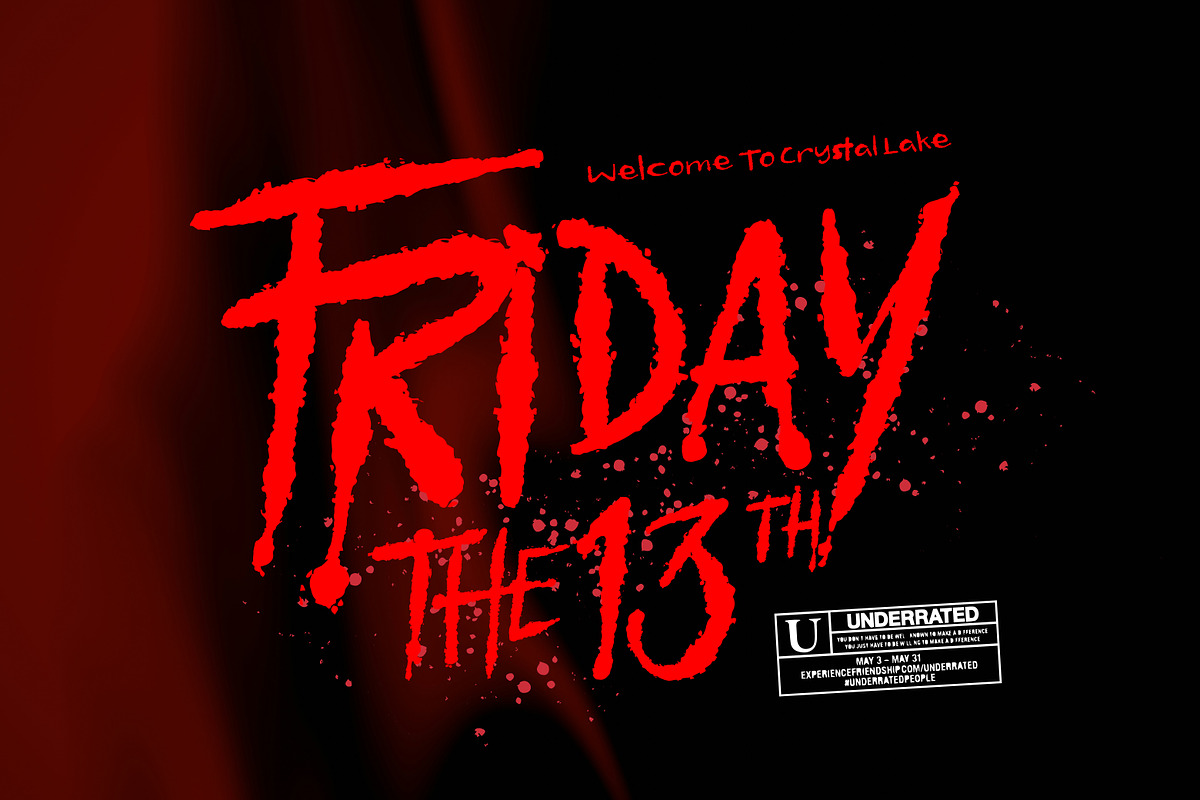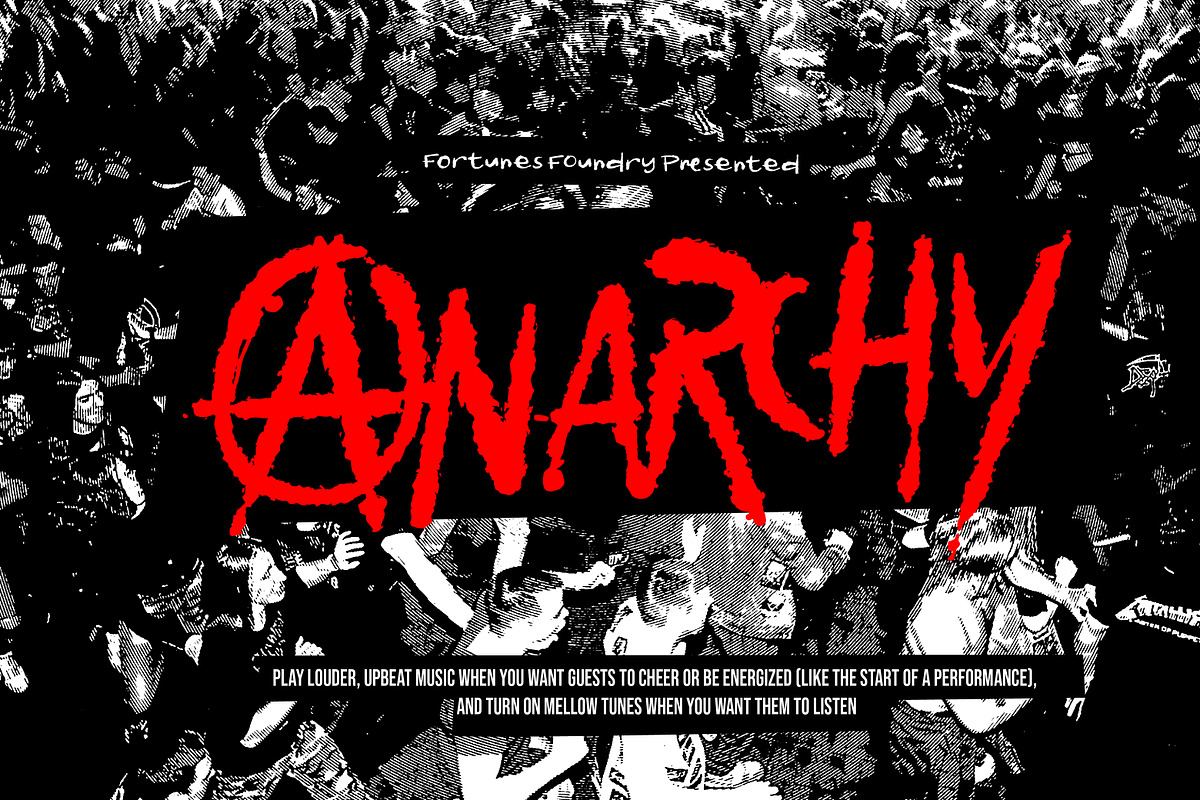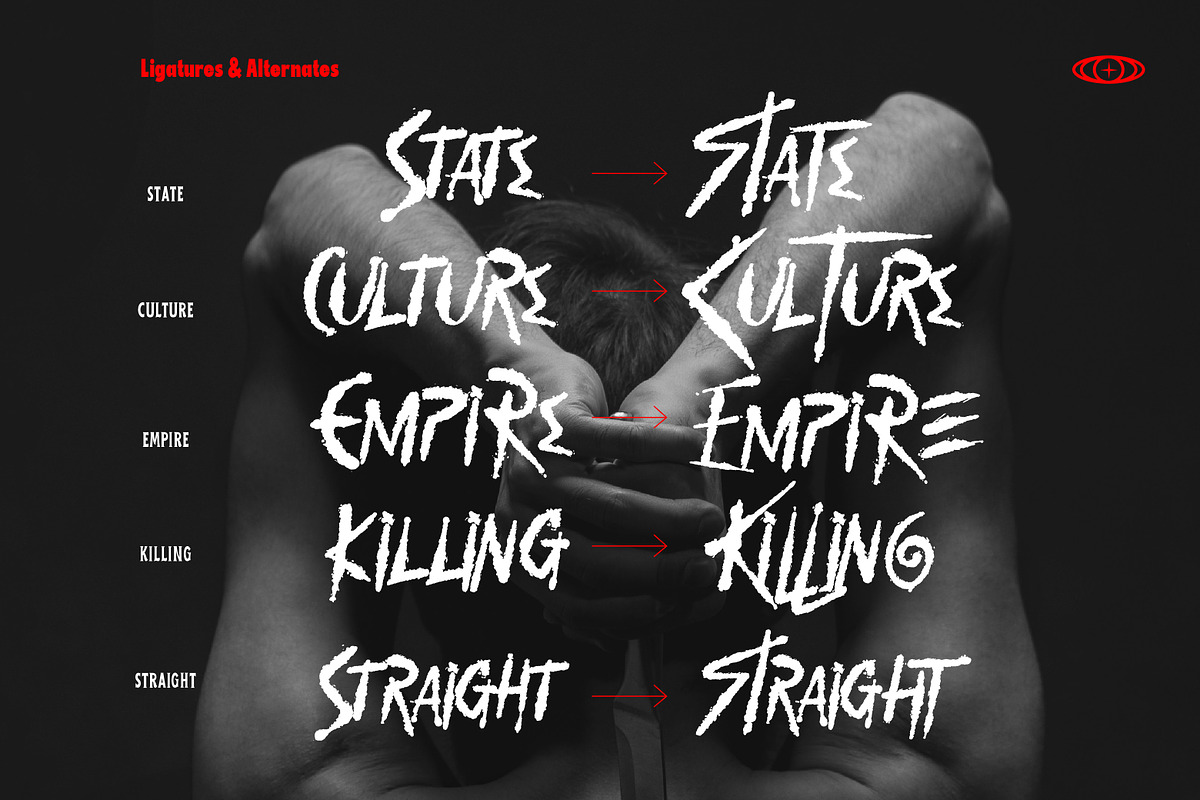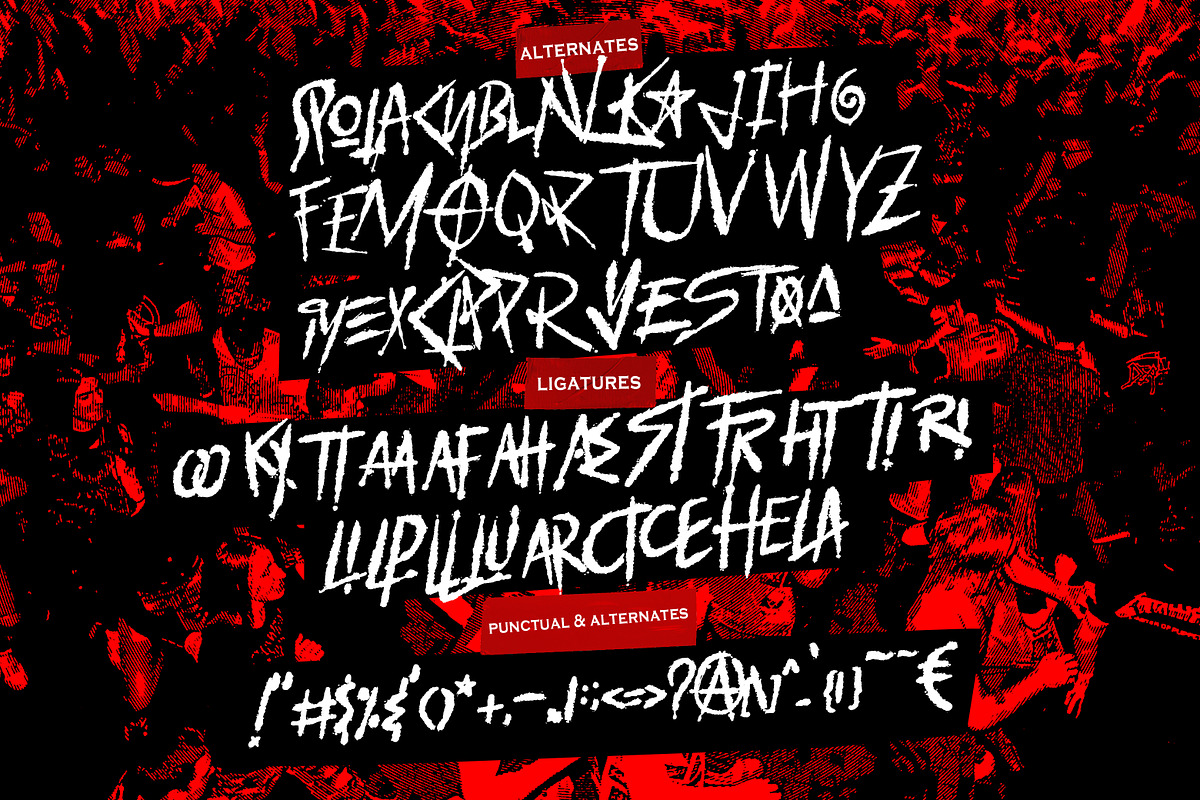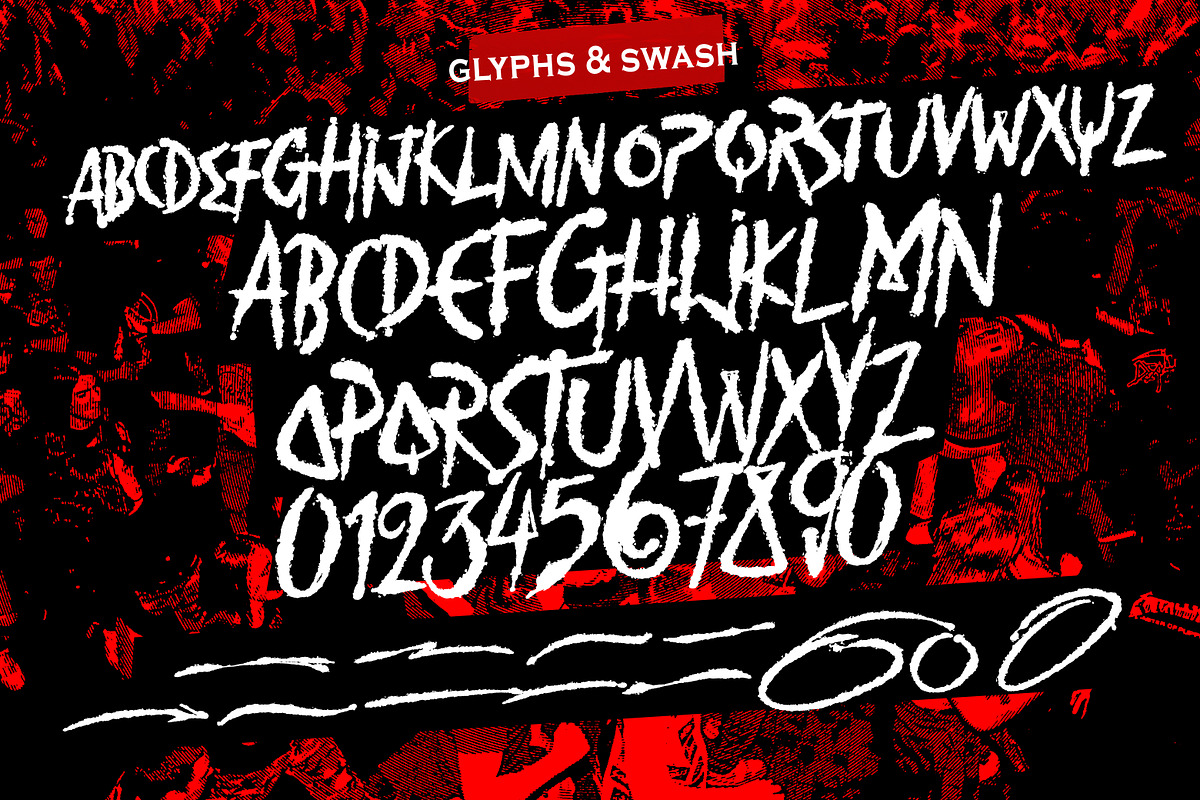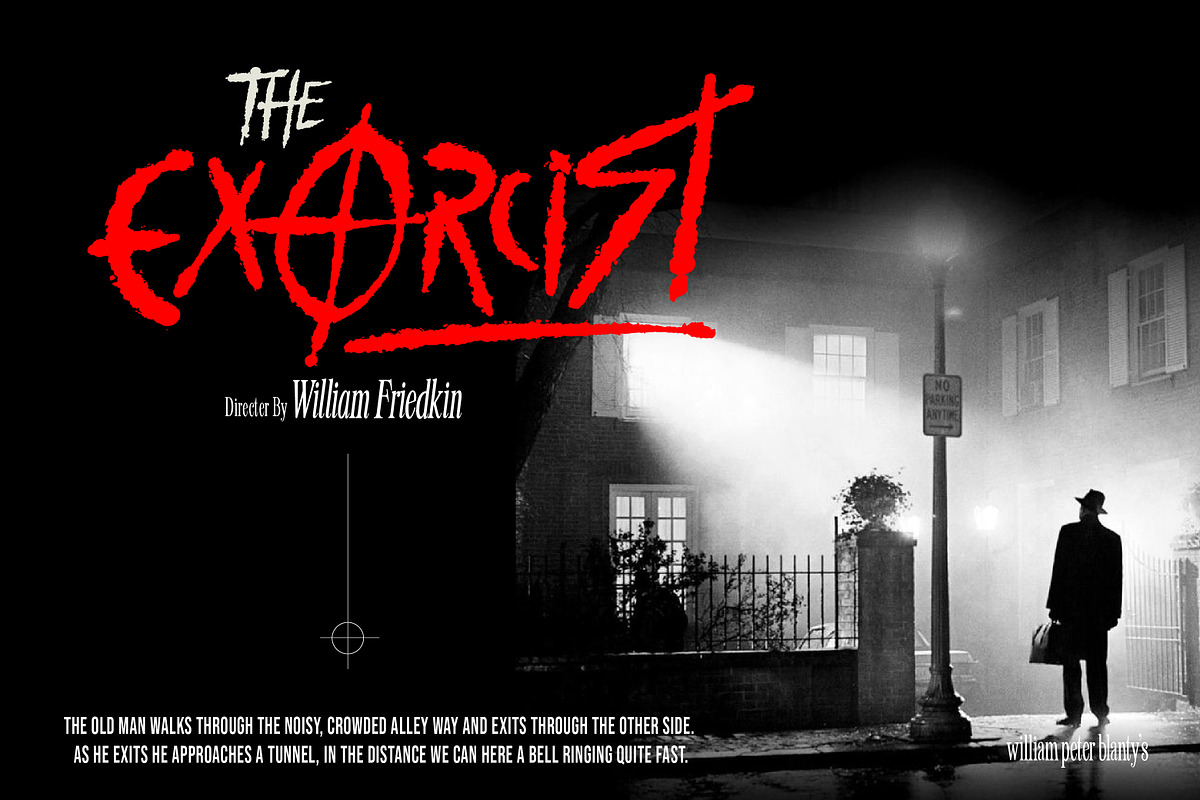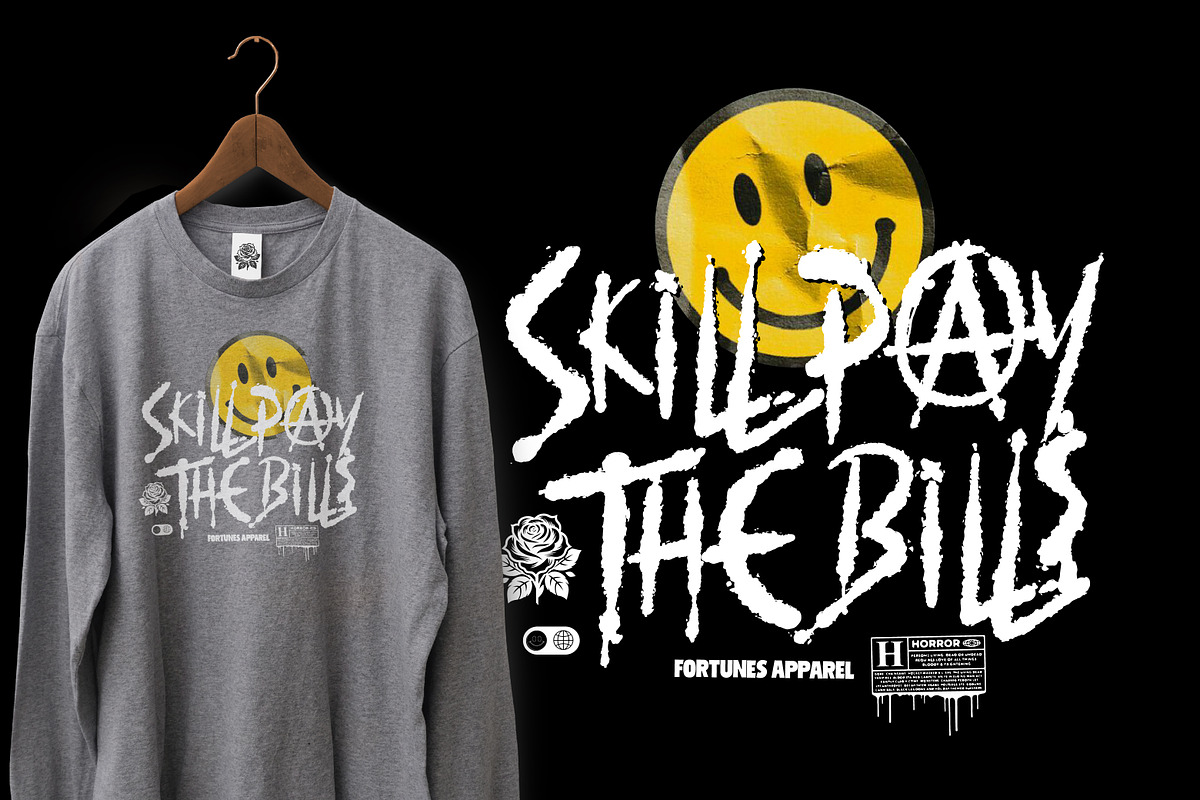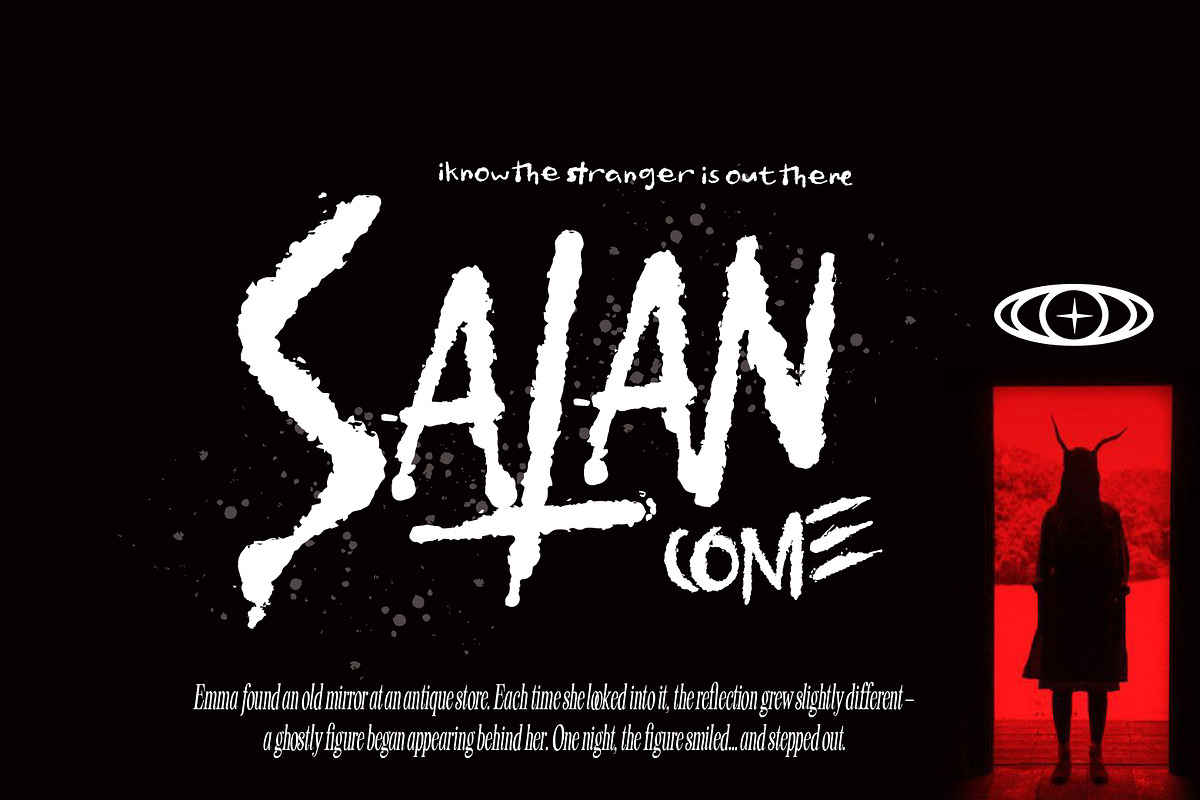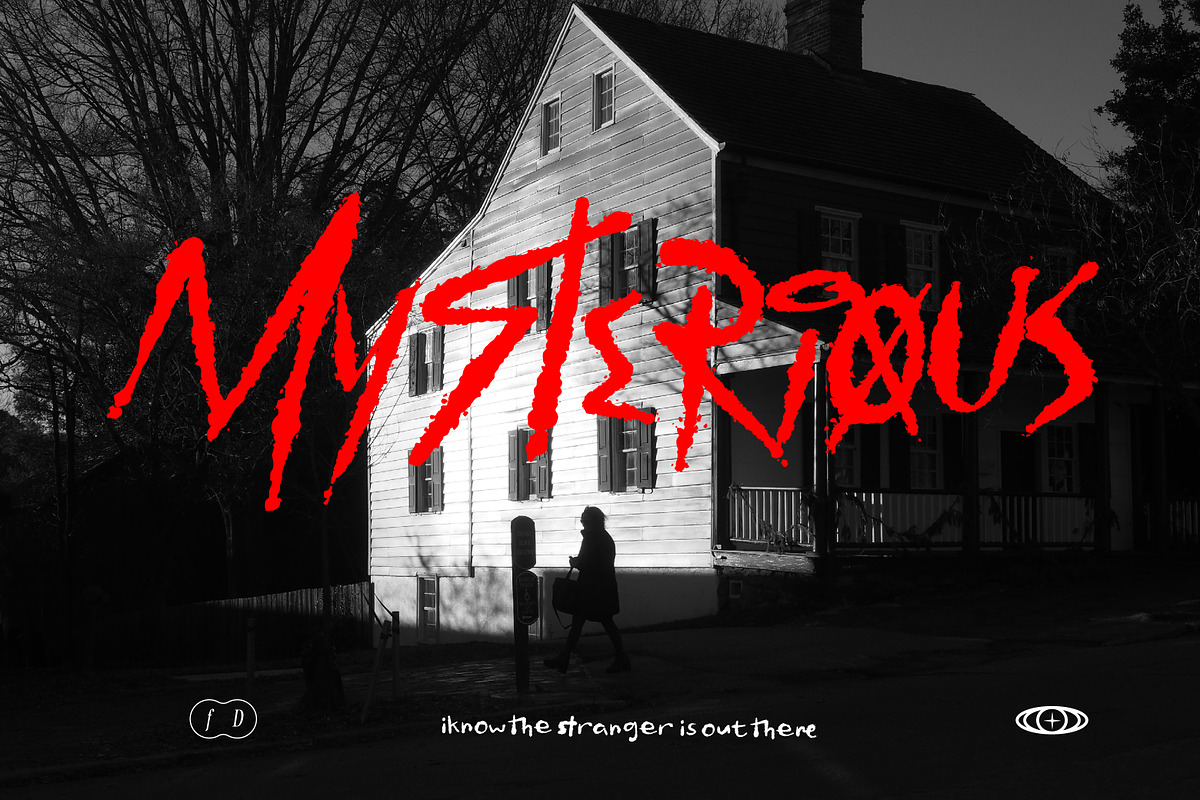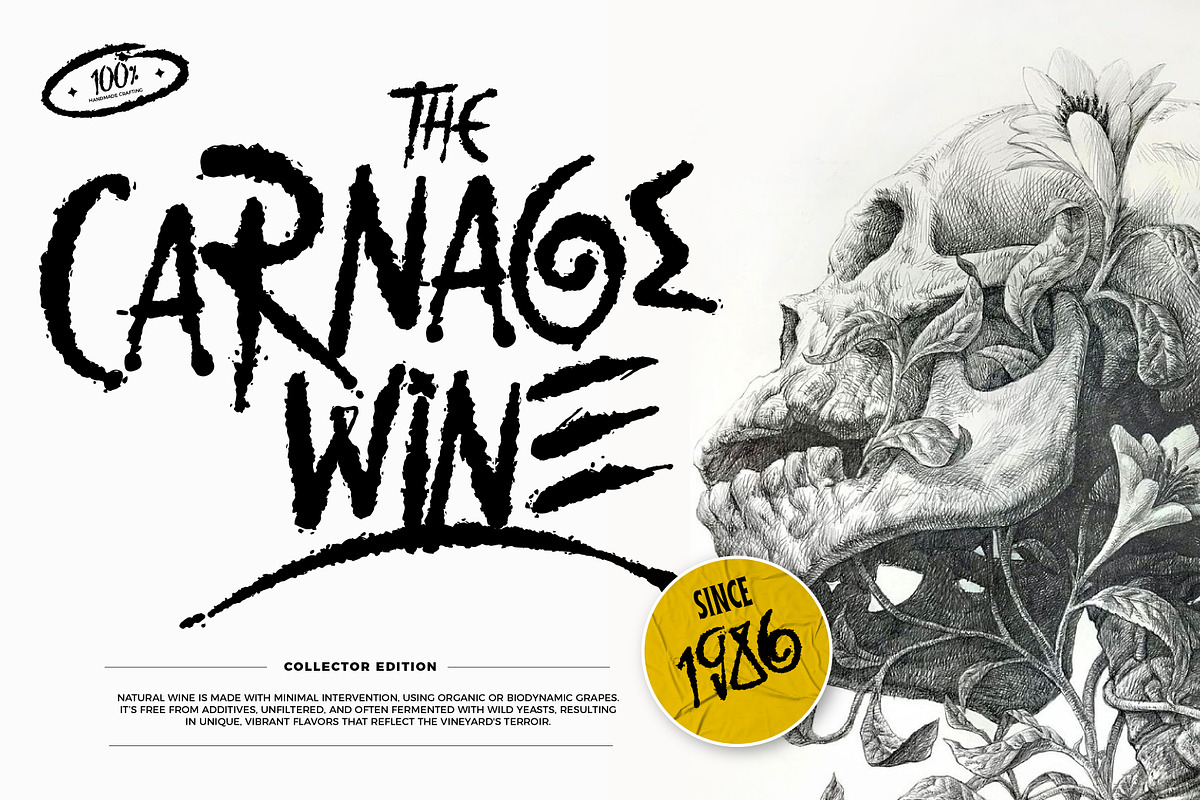
Nocture
A horror typeface evokes fear and tension through jagged edges, distorted shapes, and unsettling designs. It often mimics blood splatters, scratch marks, or decayed textures, creating an eerie atmosphere. The letters feel unpredictable, as if they could shift or disappear. Perfect for horror stories, posters, or films, these fonts instill a sense of dread and suspense with every word.
- Lowercase & Uppercase
- Ligatures (oo ky tt aa af ah ae St Fr ht ti ri li lp ll lu ar ct ce he la)
- Numbering